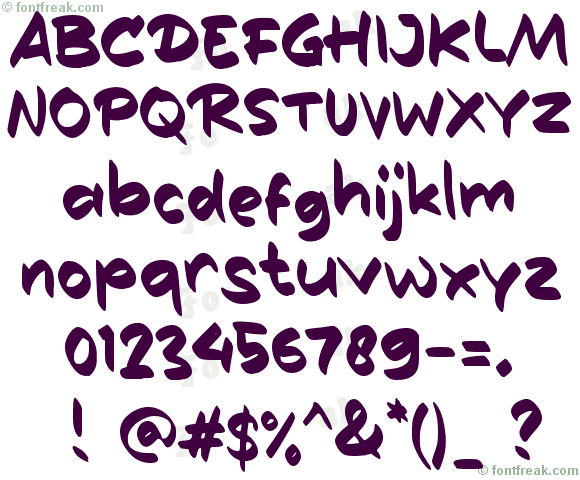
Damel
About Damel
Damel, designed by Wahyu Eka Prasetya, is a striking display font that captures attention with its unique visual style. This freeware typeface features a bold and contemporary aesthetic, making it an excellent choice for various creative projects. The font exhibits a balanced stroke weight, characterized by clean lines and a slight contrast that adds depth without overwhelming the viewer. Its generous spacing enhances readability, ensuring that it stands out in both print and digital formats. With no unnecessary decorative elements, Damel maintains a modern simplicity that appeals to a wide audience.
The versatility of the Damel font makes it perfect for several specific use cases. Graphic designers can utilize it for eye-catching movie posters that demand attention. Small business owners may find it ideal for restaurant menus that convey a modern yet inviting atmosphere. Additionally, content creators can employ Damel in social media graphics, where standout typography is essential for engagement. Wedding planners looking to create bespoke invitations will also appreciate the font's ability to blend elegance with a contemporary feel.
Targeting a diverse audience, including graphic designers, small business owners, and content creators, Damel offers a refreshing alternative to more conventional typefaces. Its ability to adapt across various mediums allows it to resonate with anyone looking for a unique design touch.
In conclusion, the Damel font stands out due to its contemporary design and versatility, making it a must-have for those seeking to elevate their visual communication. Whether you're crafting a bold promotional piece or designing a captivating invitation, the Damel font free download is an excellent resource that can enhance your creative projects and leave a lasting impression.